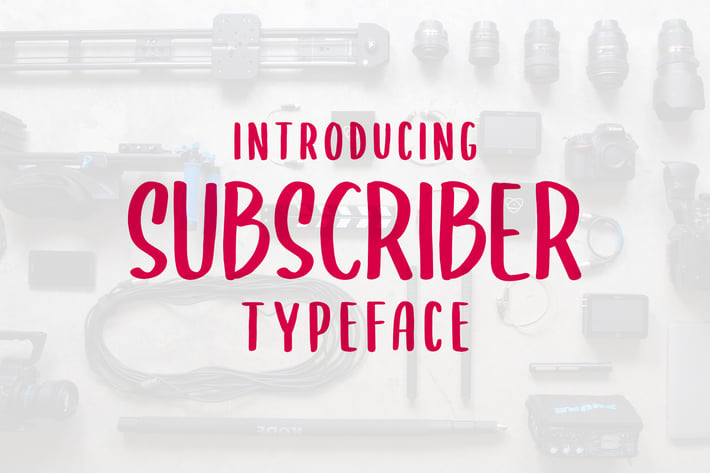
SUBSCRIBER Font
Introducing "SUBSCRIBER" font. Unique letters that are perfect for designs that are relaxed and cool with a concept that is not so serious.
You can use it to write the quoted text, food menu, refresh for Mural text, for titles or for subtitles.
Subscriber fonts are very worthy of being one of your font collections for designs that are a little funny and not so serious.
You can use it to write the quoted text, food menu, refresh for Mural text, for titles or for subtitles.
Subscriber fonts are very worthy of being one of your font collections for designs that are a little funny and not so serious.